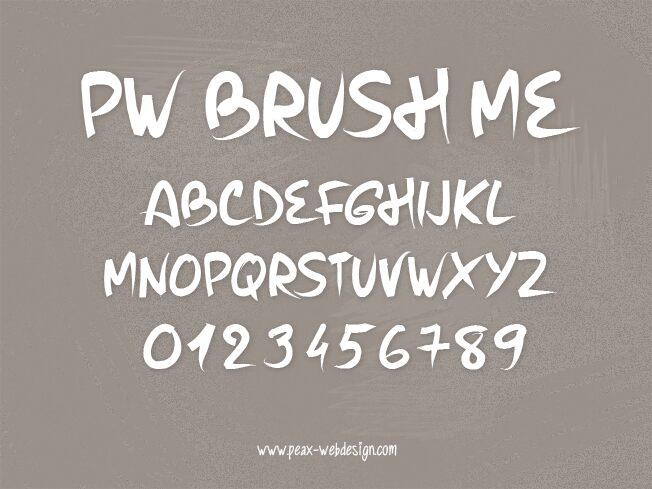
"PW Brush Me" is a vibrant, expressive font that embodies the energy and dynamism of a handwritten brush stroke. Designed by Michel Lun, this captivating typeface exudes a sense of spontaneity and artistry, making it an ideal choice for a wide range of creative applications. From eye-catching headlines to impactful branding, the bold, organic lines of "PW Brush Me" lend a distinctive and memorable flair to any design.
Its natural, textured appearance effortlessly conveys a sense of authenticity and craftsmanship, making it a versatile tool for designers seeking to inject a touch of handcrafted charm into their work.